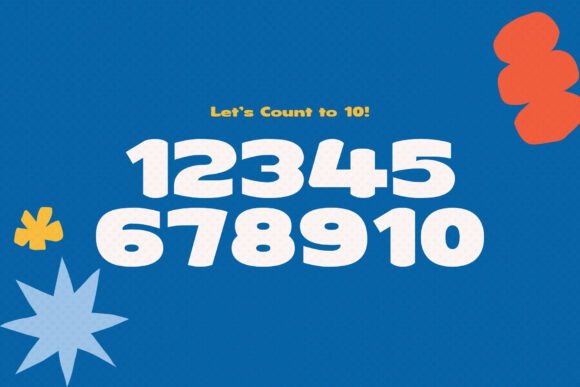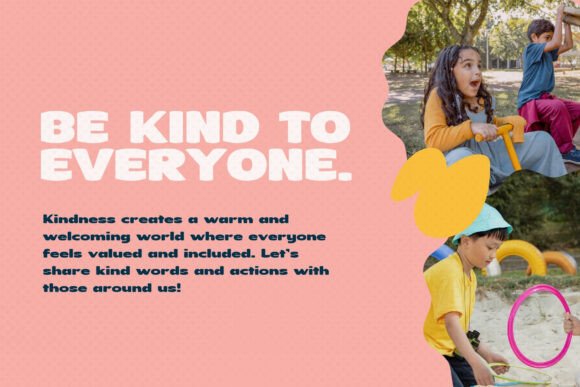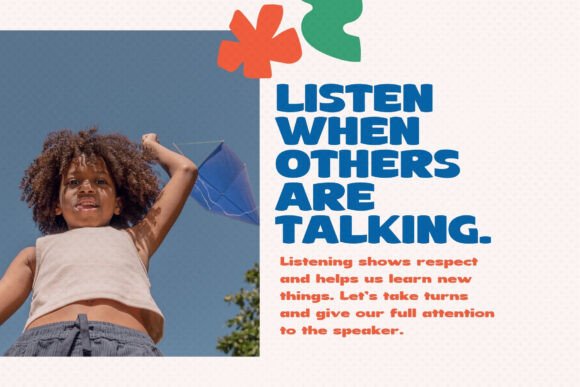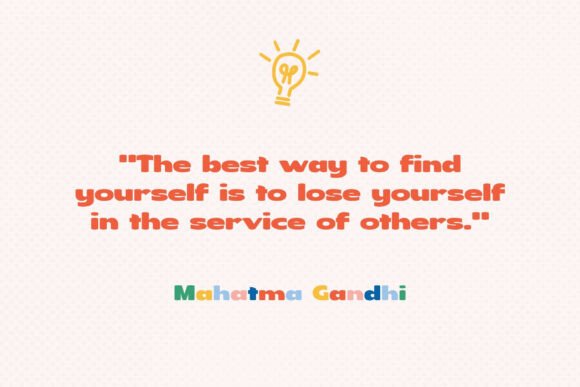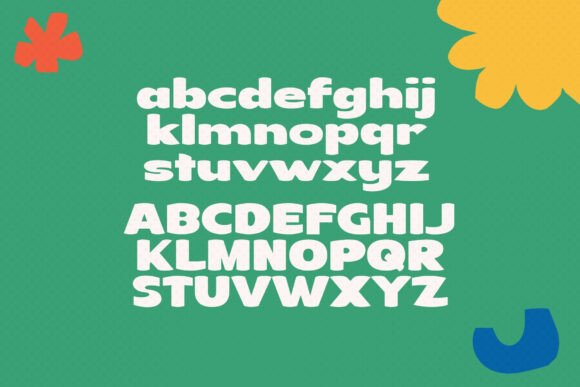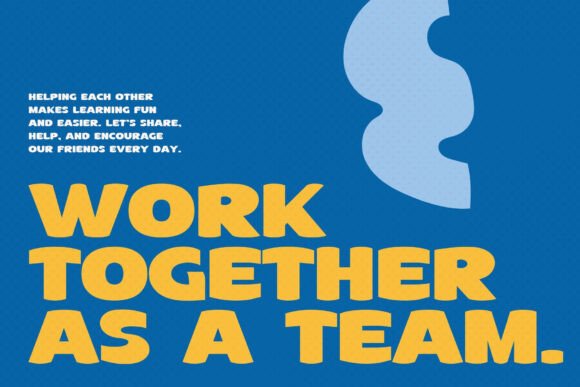
Introduction to Plumpkins Font
Introducing Plumpkins, the ultimate playful sans-serif typeface designed to bring joy, fun, and friendliness to any project.
As the name suggests, Plumpkins is big, bold, and plump, making it the perfect choice for kidsโ designs, storybooks, educational materials, playful branding, and more With its soft, rounded edges and bouncy personality, Plumpkins radiates warmth and approachability, making every word feel like a hug.
Key Features of Plumpkins Font
Why Choose Plumpkins Font?